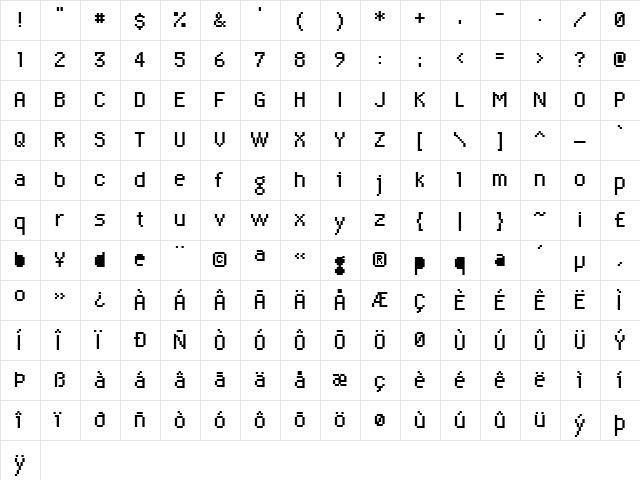
Algol Regular Font Preview
Algol Regular
Design Context for Algol Typeface
Algol takes a measured approach to typography — its balanced proportions and neutral character make it a reliable workhorse for both digital and print work.